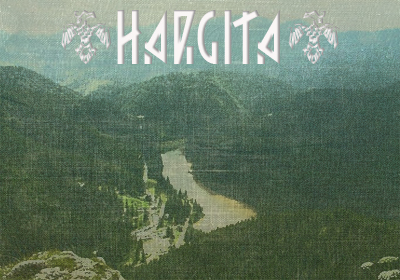
(HARGITA) is inspired by ancient hungarian runes (rovás), named after the Hargita Mountains in Transylvania. There were no small caps in runes, so I just scaled down the capital versions. I included icons of a totem bird called Turul and the symbol of the sun and the moon from the flag of Székely Land. This font is free for personal use only. If you need extra character or language extention please contact me at myhandwritings@gmail.com Also feel free to drop me a line in case of questions or feedback.Mostly in case of any problems with the characters, pairs, installation etc. That would also help me in my design work, and would be greatly appreciated! Roland Huse, http://www.rolandhuse.com http://www.myhandwritings.com Enjoy \m/ |